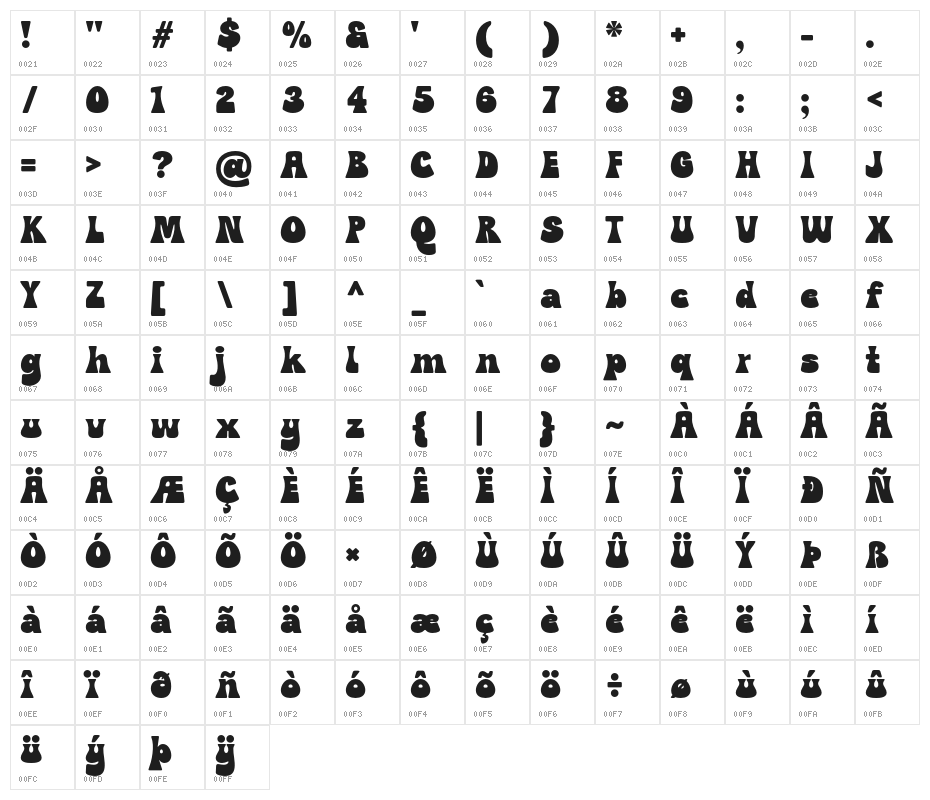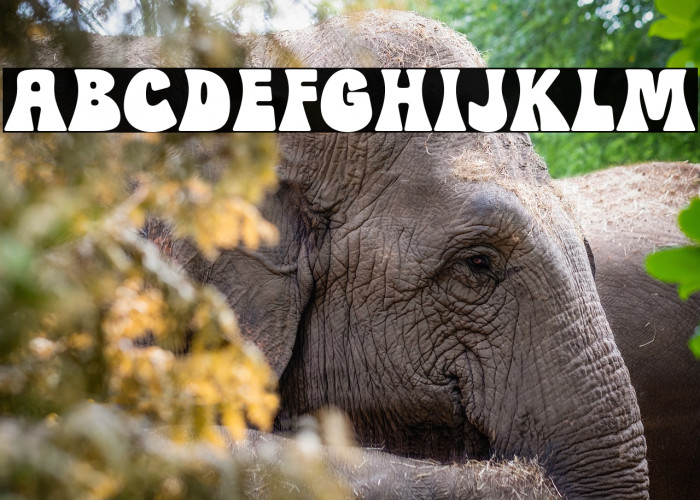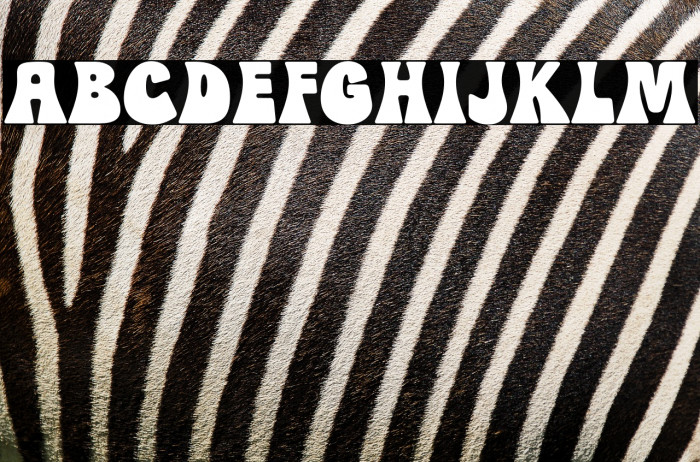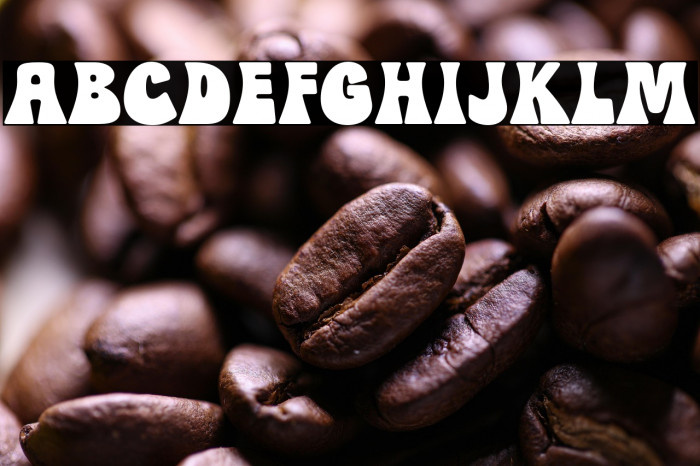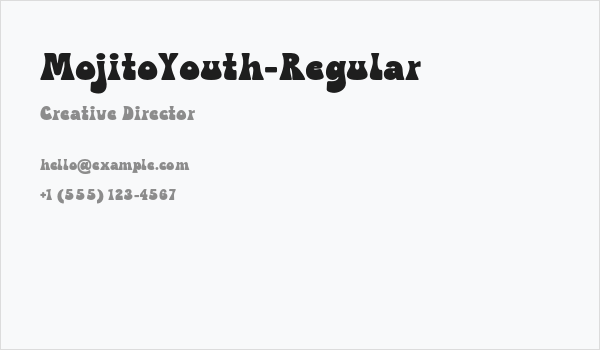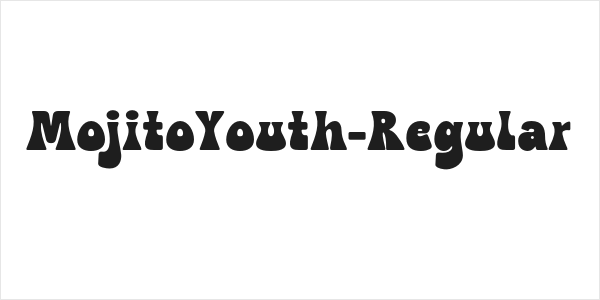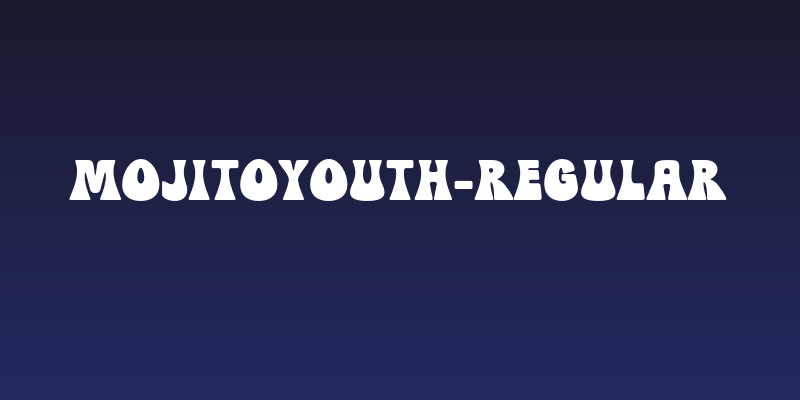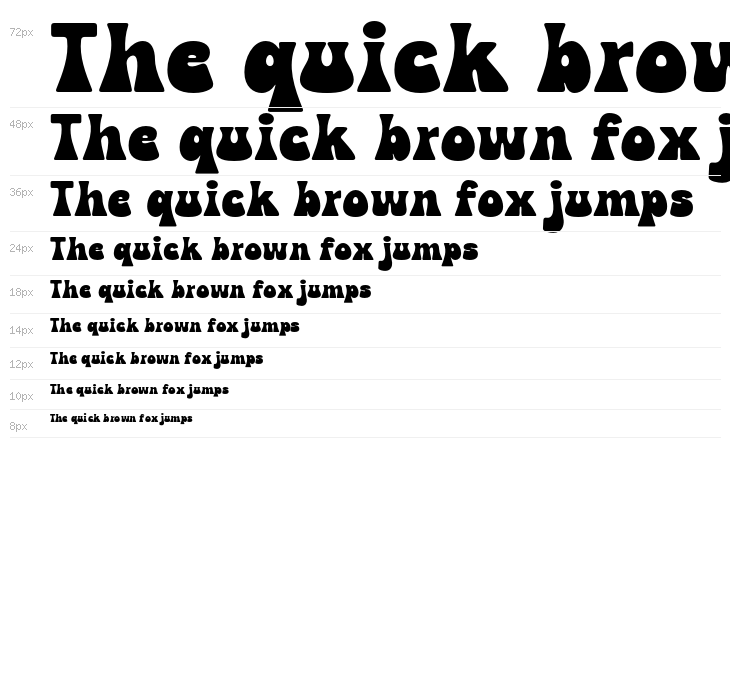
MojitoYouth-Regular Font
MojitoYouth-Regular Description
This font features a bold and playful design with thick, rounded strokes that give it a whimsical and lively appearance. The characters are wide and have a slightly irregular shape, adding to the font's unique and fun personality. The uppercase and lowercase letters maintain a consistent style, with the uppercase being more pronounced. Numbers and special characters are equally bold and expressive, making them stand out. This font is perfect for projects that require a touch of creativity and energy.
| Proposed Projects | Ideal for children's books, playful branding, posters, and creative advertising. |